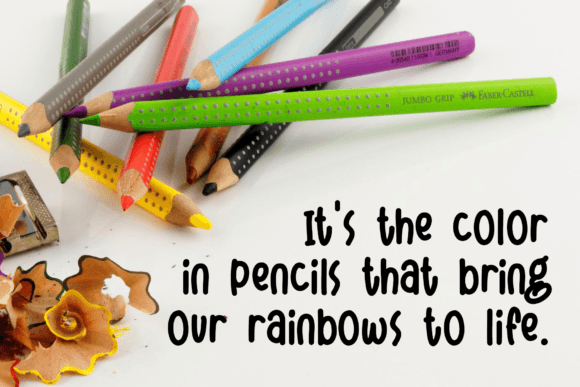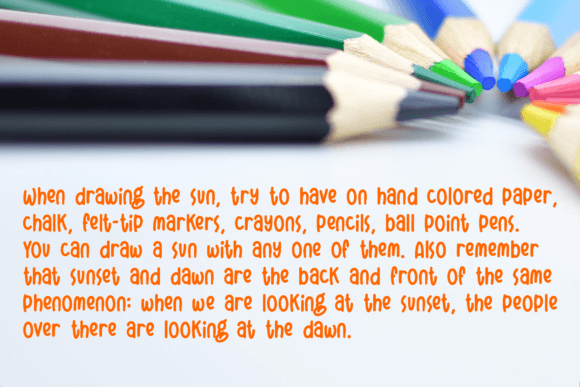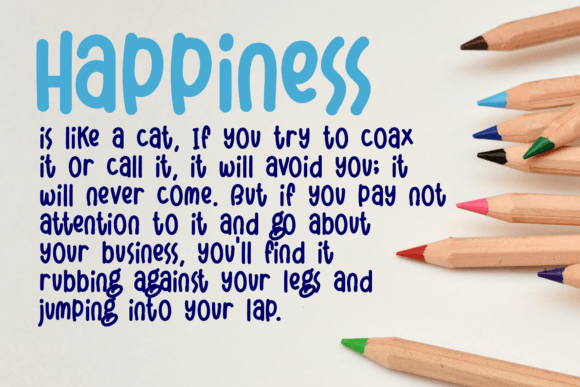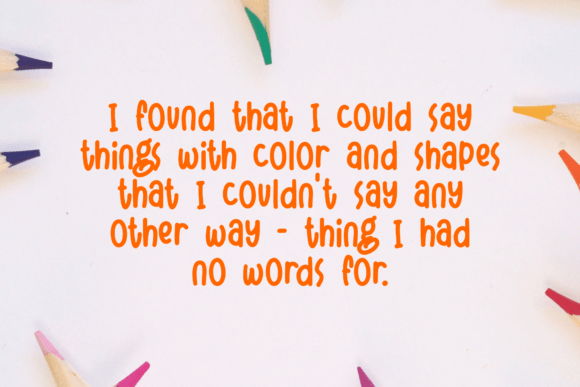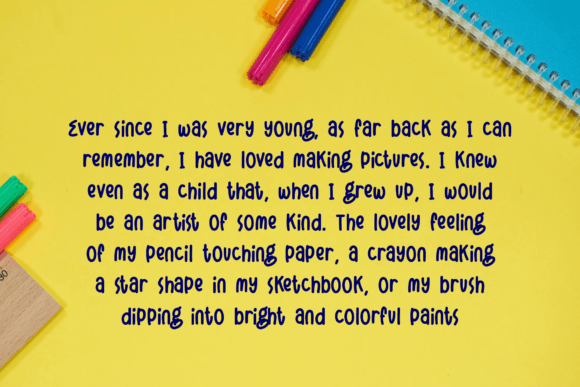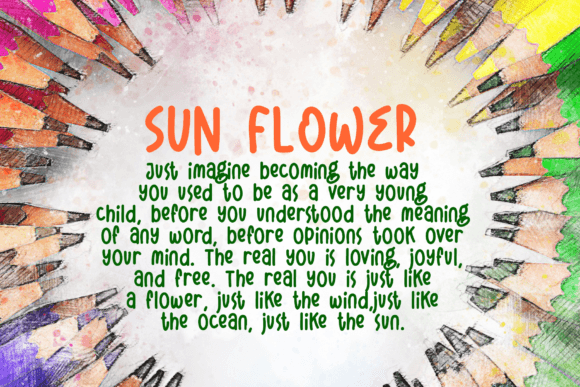
Discover the Delightful Agatha Font: Elevate Your Designs with a Fun Handwritten Style
Are you on the hunt for a font that adds a touch of personality and whimsy to your designs? Look no further than the Agatha font! This delightful handwritten font is perfect for crafters, designers, and anyone looking to add a dash of fun to their creative projects. In this article, we’ll dive into the world of Agatha font, exploring its features, uses, and benefits.
What is Agatha Font?
Agatha is a fun handwritten font that boasts clean lines and sharp edges, making it a versatile and stylish addition to any design. Its unique charm and character make it perfect for a wide range of projects, from posters and web graphics to game graphics, t-shirts, and more.
Key Features of Agatha Font
- Clean Lines and Sharp Edges: Agatha’s sleek design makes it perfect for both digital and print projects.
- Multiple Weights: The font comes in different weights, making it a stellar option for branding and web use.
- Condensed Spacing: Agatha’s condensed spacing looks beautiful in web designs, making it perfect for headlines, titles, and more.
Uses of Agatha Font
Agatha font is incredibly versatile and can be used for a wide range of projects, including:
- Posters and Flyers: Add a touch of personality to your posters and flyers with Agatha’s fun and playful style.
- Web Graphics: Use Agatha to create eye-catching web graphics, such as social media posts, banners, and more.
- Game Graphics: Agatha’s clean lines and sharp edges make it perfect for game graphics, such as titles, menus, and more.
- T-Shirts and Merchandise: Create stunning t-shirts, hoodies, and other merchandise with Agatha’s unique style.
- Logos and Branding: Use Agatha to create custom logos, business cards, and other branding materials that stand out.
- Magazines and Publications: Add a touch of whimsy to your magazines, newspapers, and other publications with Agatha’s playful style.
- Social Media: Use Agatha to create engaging social media posts, stories, and more.
- Weddings and Events: Agatha’s elegant and playful style makes it perfect for wedding invitations, signage, and other event materials.
Benefits of Using Agatha Font
So, why choose Agatha font for your next project? Here are just a few benefits:
- Unique Style: Agatha’s fun and playful style sets it apart from other fonts, making your designs stand out.
- Versatility: Agatha can be used for a wide range of projects, from digital to print.
- Time-Saving: With Agatha, you can create stunning designs in no time, thanks to its clean lines and sharp edges.
In conclusion, Agatha font is a delightful handwritten font that adds a touch of personality and whimsy to any design. Its clean lines, sharp edges, and multiple weights make it perfect for a wide range of projects, from posters and web graphics to logos and branding materials. Whether you’re a designer, crafter, or simply looking for a fun font to express yourself, Agatha is an excellent choice. So, why not give Agatha a try and elevate your designs to the next level?
With its unique style, versatility, and ease of use, Agatha font is sure to become a favorite in your design arsenal. So, go ahead, get creative, and have fun with Agatha!